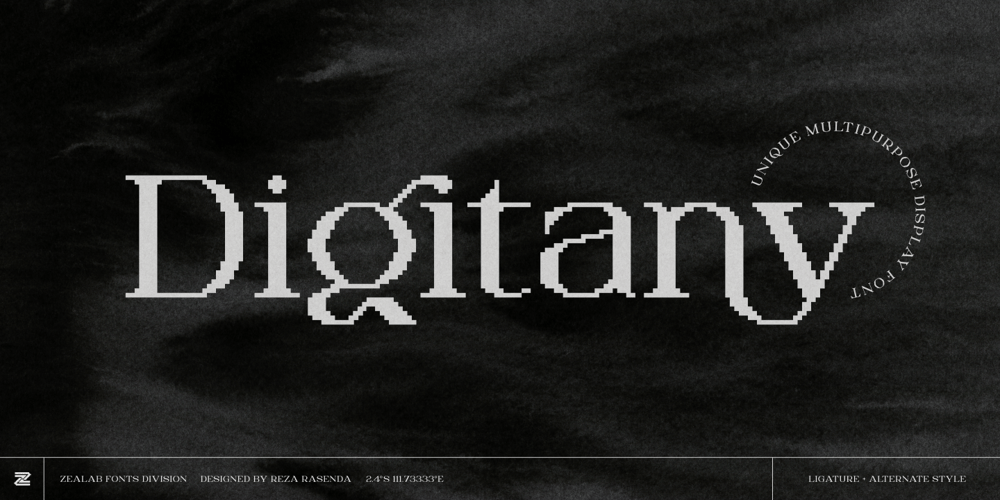
Digitany
Digitany font
Digitany Font Family was designed by Reza Rasenda and published by Zealab Fonts Division. Digitany contains 1 styles and family package options. Digitany is a multipurpose display font, its a combination between luxury serif font and 8bit/pixel art style. Effortlessly re-create the classic fun vibes of the 80’s using this display typeface that goes well with retro t-shirt designs, posters, illustrations, logos, and more.Digitany include uppercase and lowercase, ligature and alternate style, and also multilingual support.